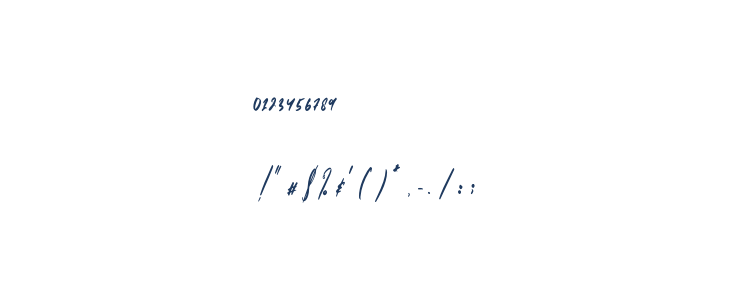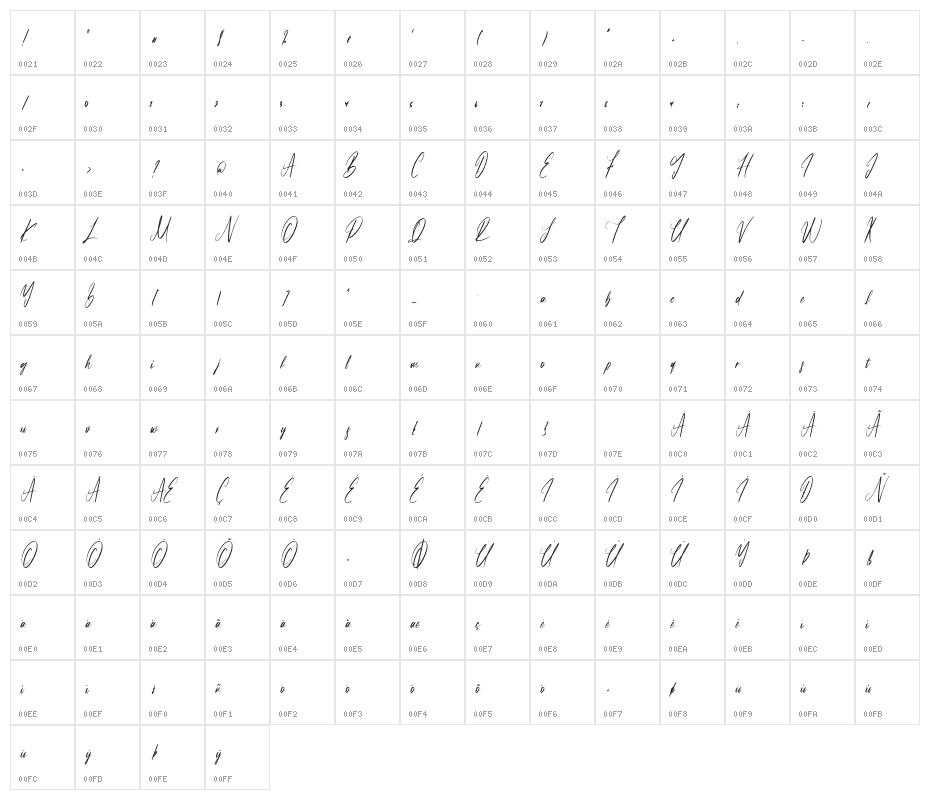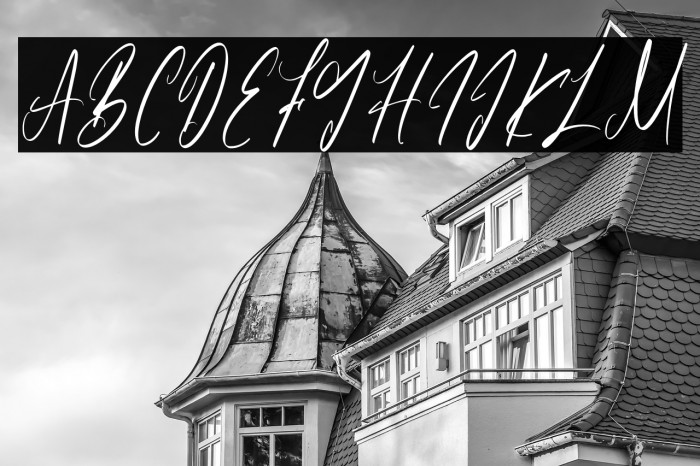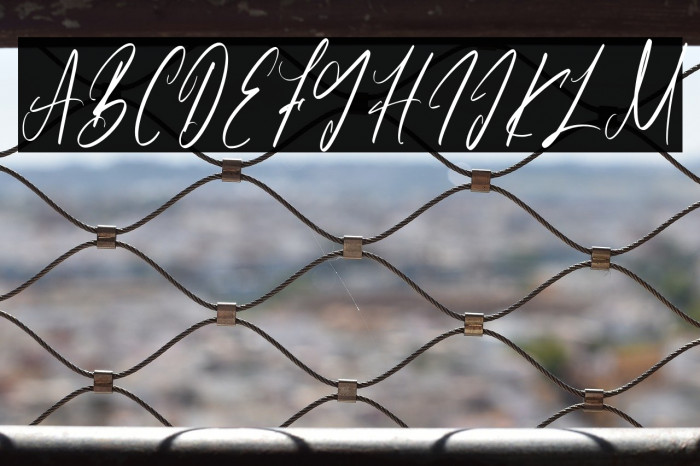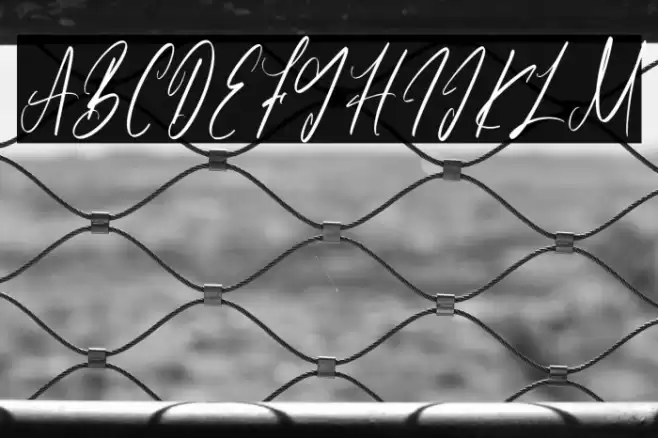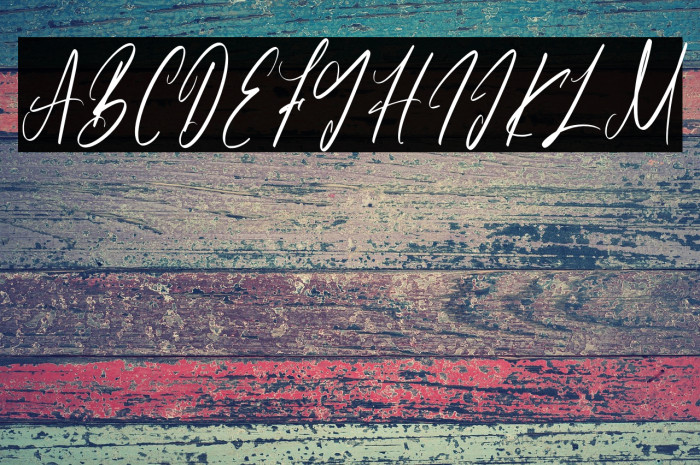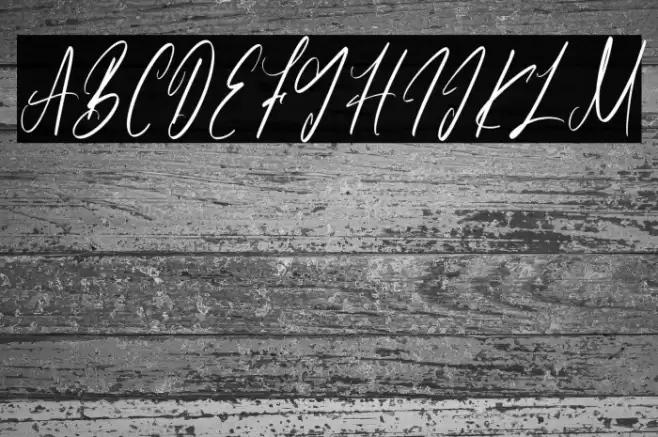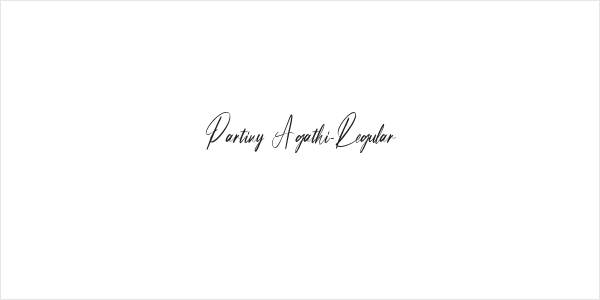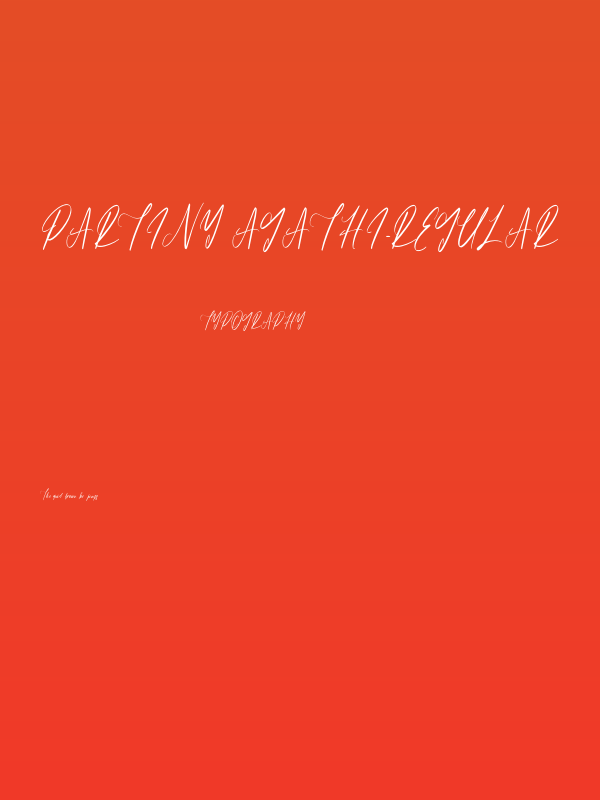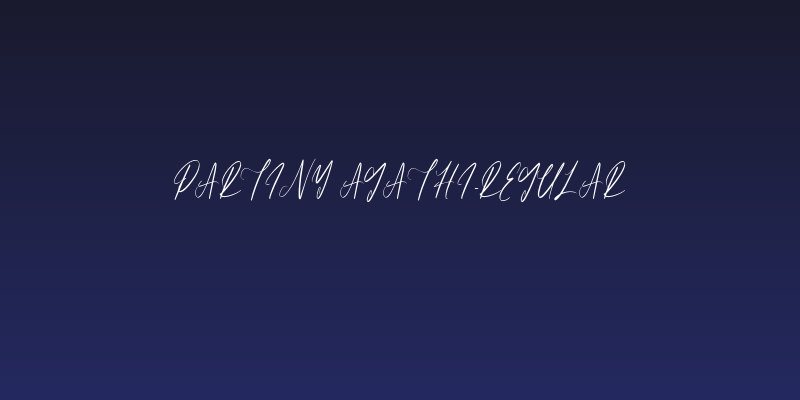
Partiny Agathi-Regular Font
Partiny Agathi-Regular Description
This font exudes elegance and sophistication with its flowing, cursive style. The characters are intricately designed, featuring smooth curves and delicate strokes that give it a handwritten appearance. The uppercase letters are particularly ornate, with extended flourishes that add a touch of drama and flair. The lowercase letters maintain a consistent style, complementing the uppercase with their graceful loops and swashes. The numbers and special characters are equally stylized, ensuring a cohesive look across all text. This font is perfect for projects that require a personal, artistic touch.